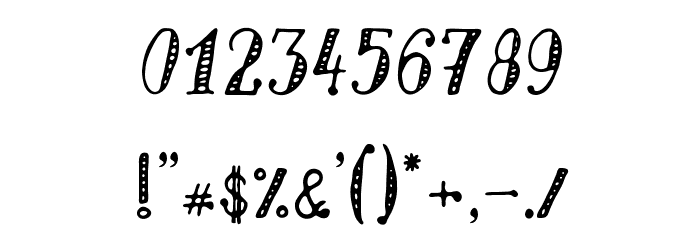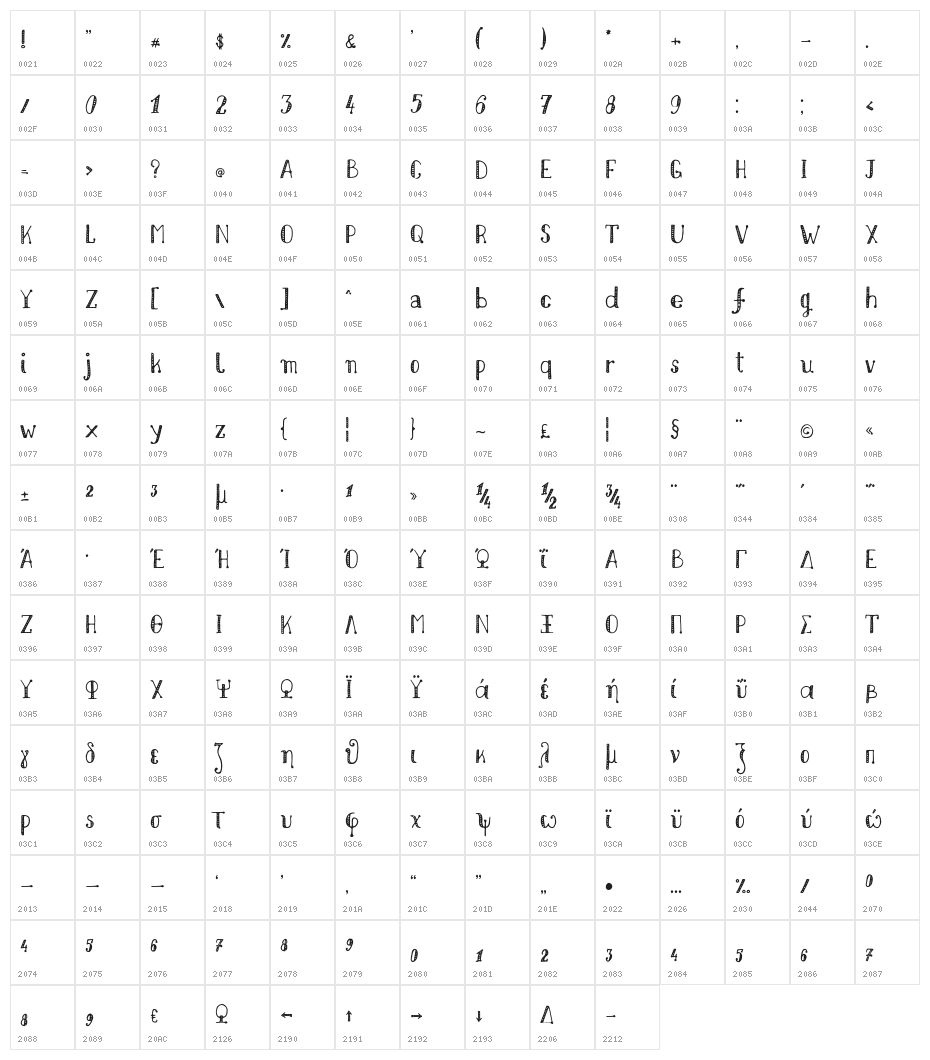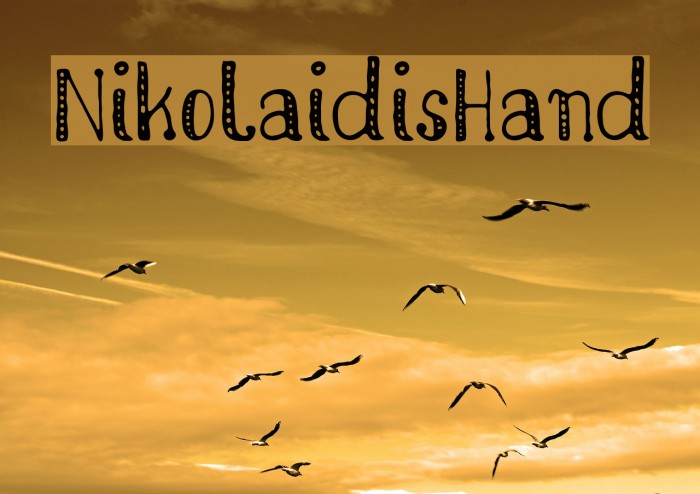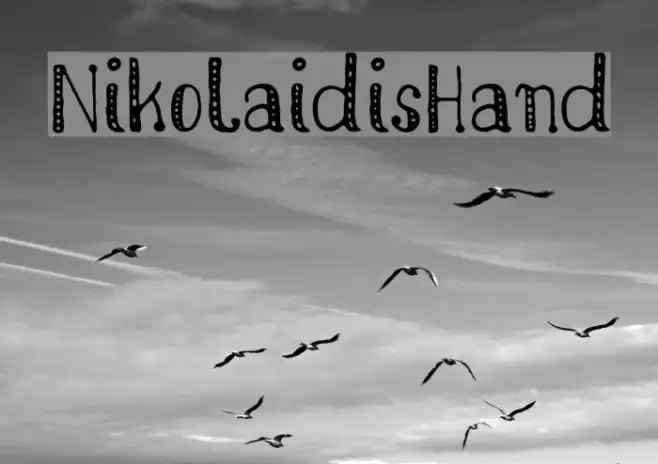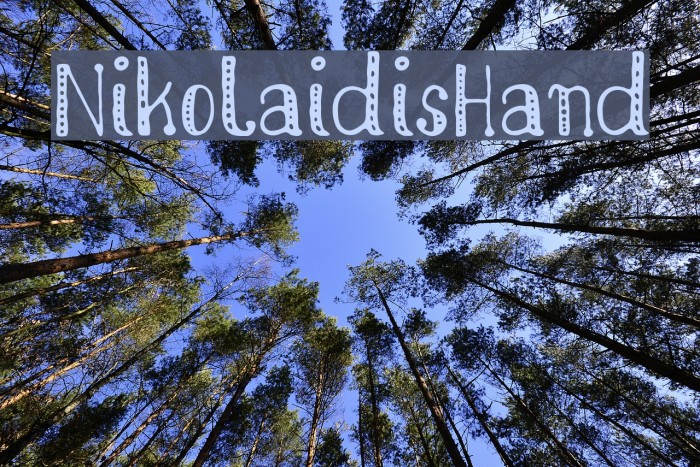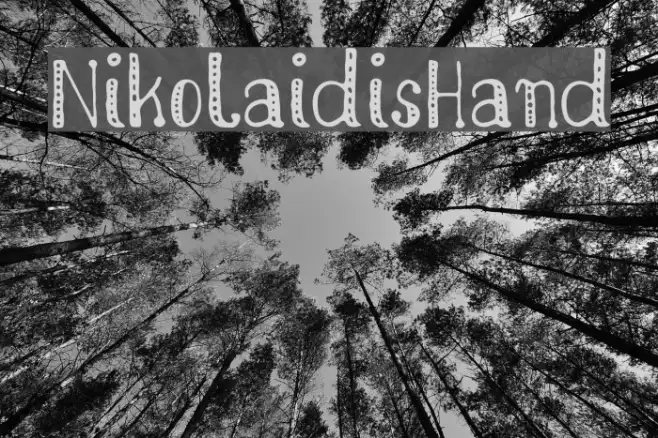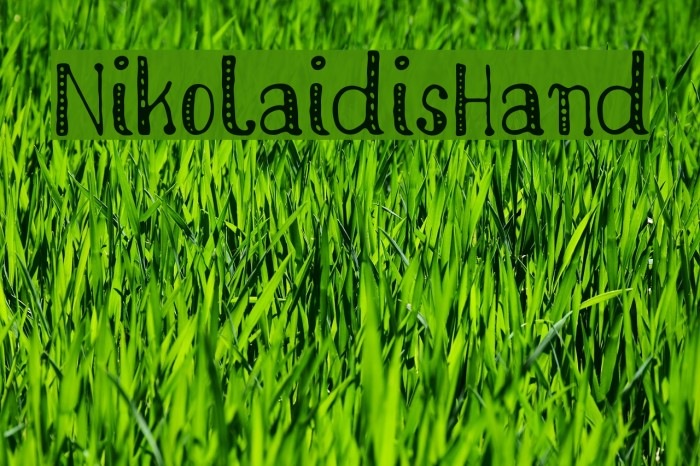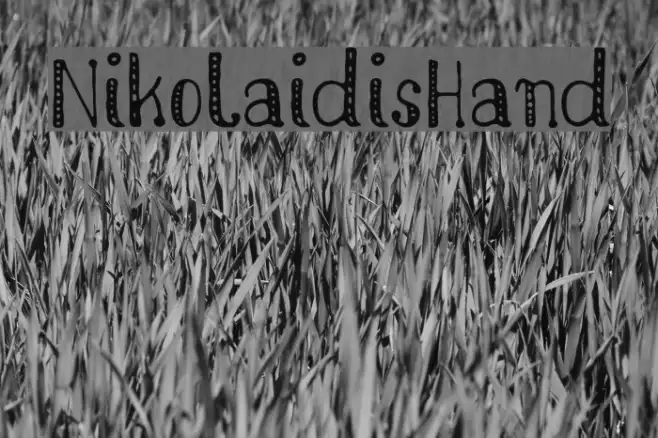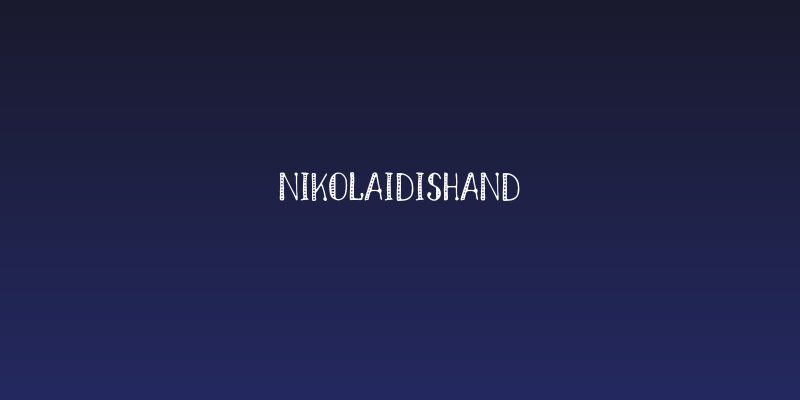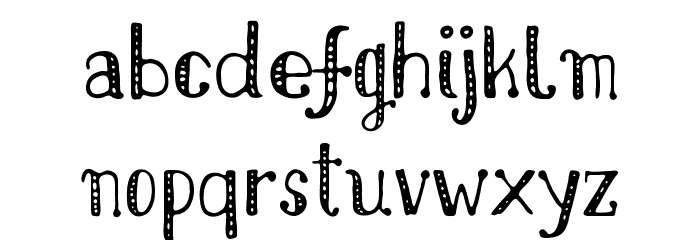
NikolaidisHand Font
NikolaidisHand Description
This font features a playful and whimsical design with a hand-drawn aesthetic. Each character is adorned with decorative dots, adding a unique and artistic flair. The letters have a casual and informal style, with varying stroke widths that contribute to its charm. The uppercase and lowercase letters maintain a consistent style, while the numerals and special characters complement the overall look. This font is perfect for projects that require a fun and creative touch, such as children's books, greeting cards, or playful branding.
| Overall Style | Whimsical, Artistic, Playful |
| Proposed Projects | Ideal for children's books, greeting cards, playful branding, and creative projects. |